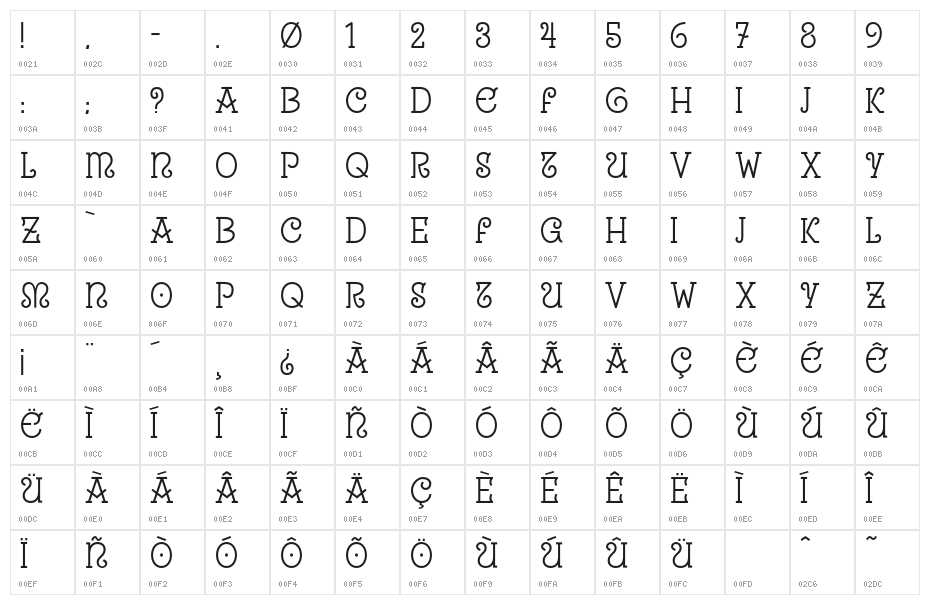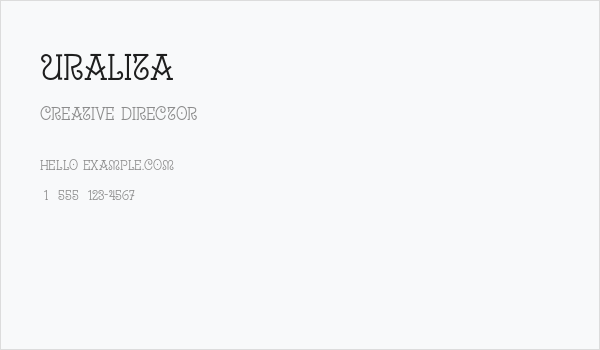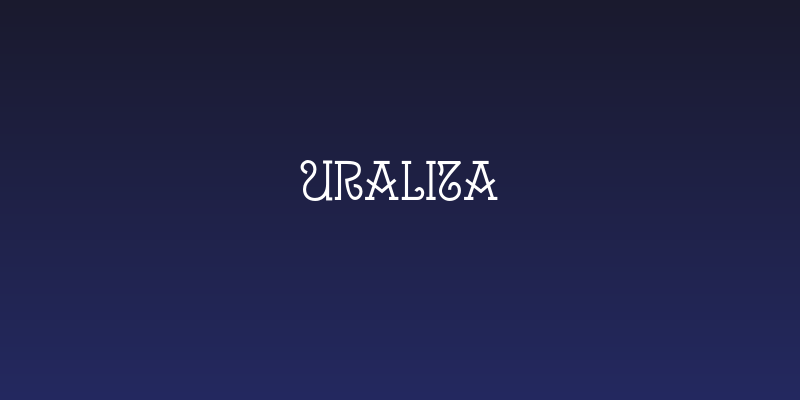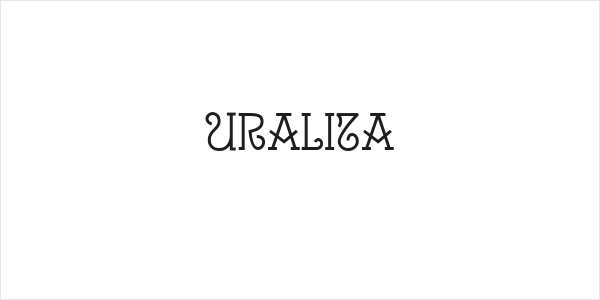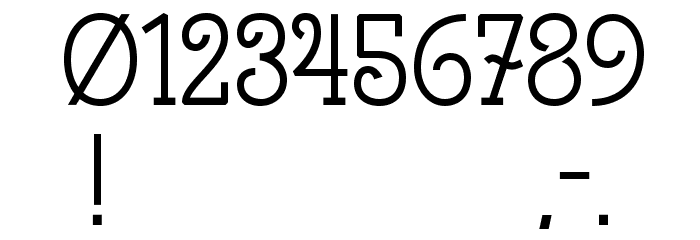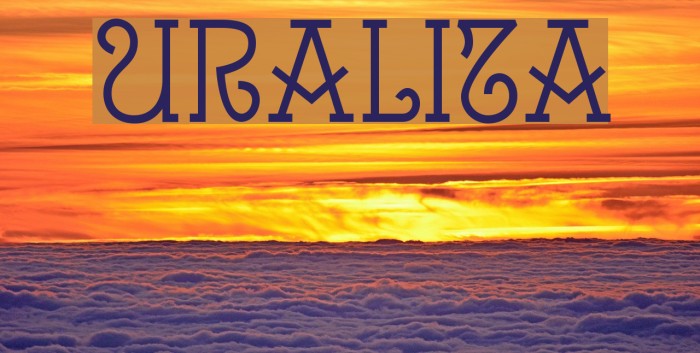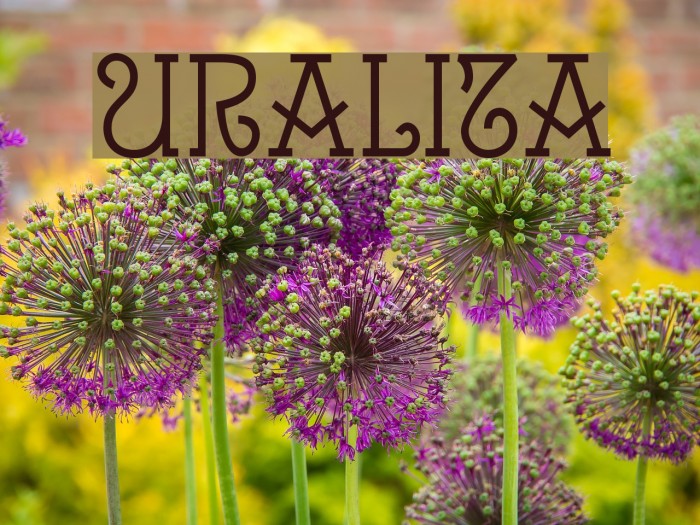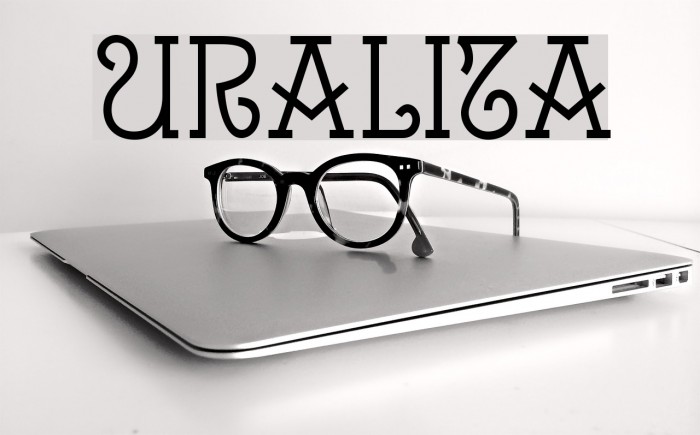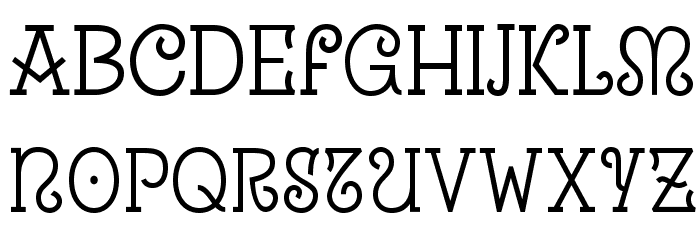
Uralita Font
Uralita Description
This font exhibits a unique blend of classic and decorative elements, characterized by its distinctive curls and loops on certain characters. The uppercase letters feature a bold and structured design, while the lowercase letters maintain a consistent style with subtle flourishes. The numerals are equally stylized, offering a cohesive look across the character set. The font's overall appearance is both elegant and playful, making it suitable for a variety of creative applications. Its decorative nature is emphasized by the intricate detailing on letters such as 'A', 'G', and 'Q', which showcase a harmonious balance between readability and artistic flair. The special characters, including punctuation marks, are designed to complement the overall aesthetic, ensuring a seamless integration in any text composition.
| Proposed Projects | Ideal for branding, invitations, posters, and artistic projects that require a touch of elegance and creativity. |